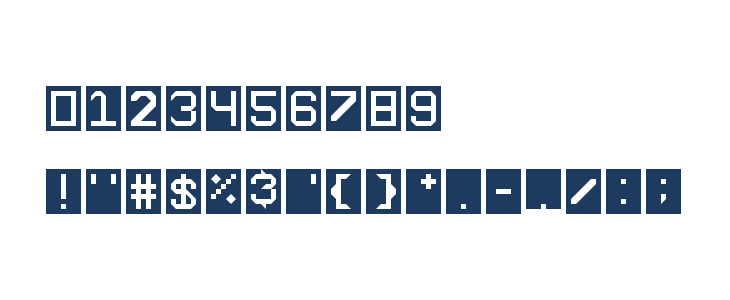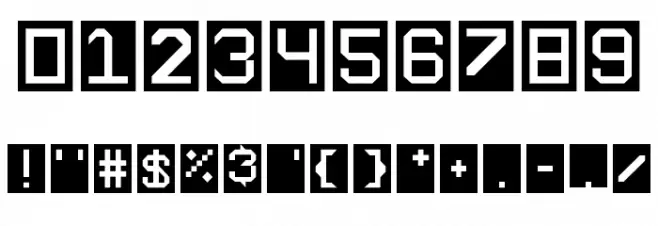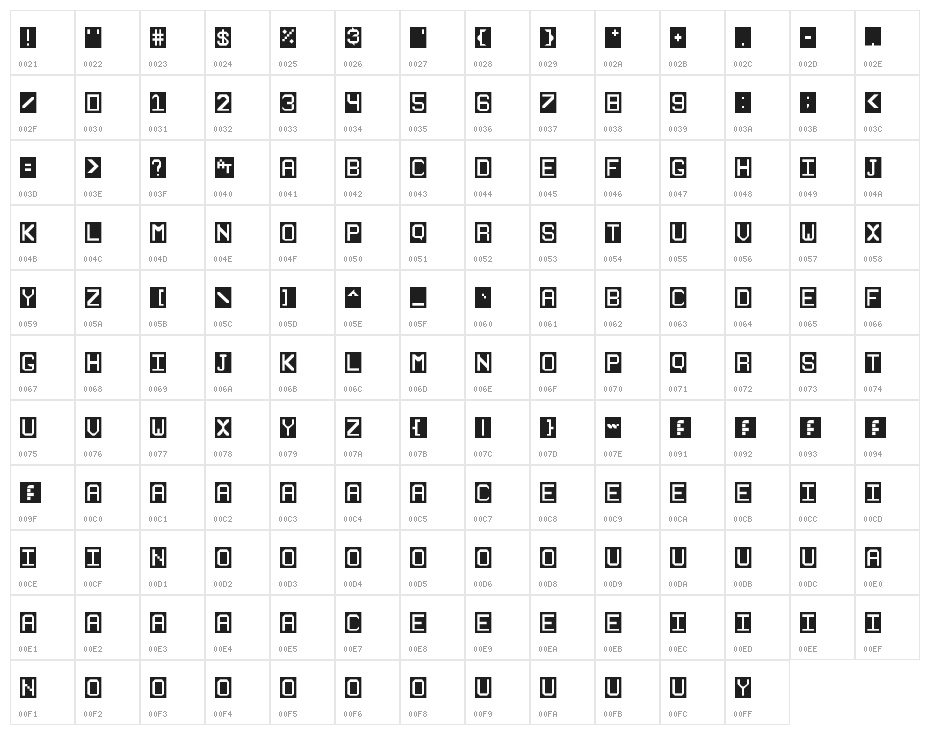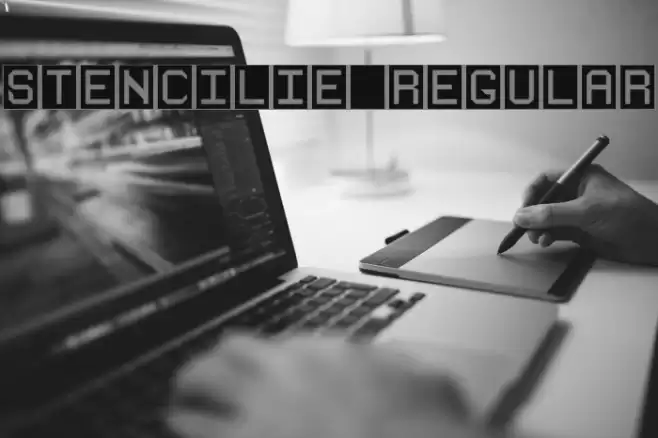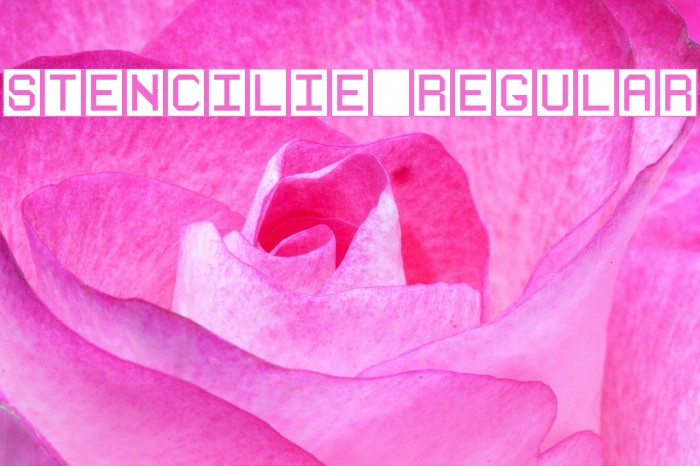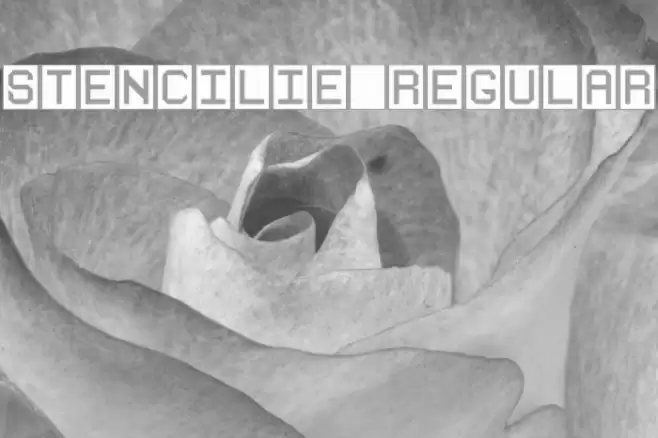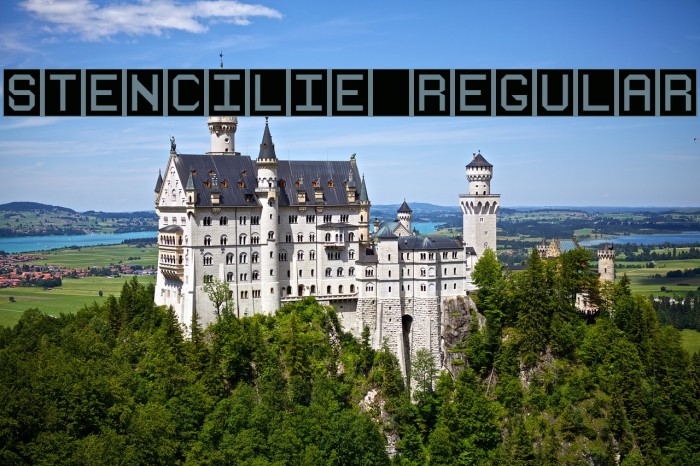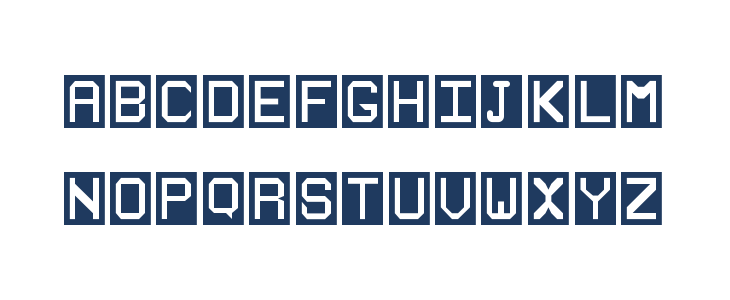
Stencilie Regular Font
Stencilie Regular Description
This font features a bold, geometric design with a stencil-like appearance. Each character is enclosed in a square, creating a uniform and structured look. The letters and numbers are characterized by sharp angles and straight lines, giving them a modern and industrial feel. The use of negative space within each character enhances the stencil effect, making it ideal for designs that require a strong, impactful presence. The font's distinct style is both eye-catching and functional, suitable for various creative applications.
| Overall Style | Modern, Industrial |
| Proposed Projects | Ideal for branding, posters, signage, and any project requiring a strong, impactful typeface. |